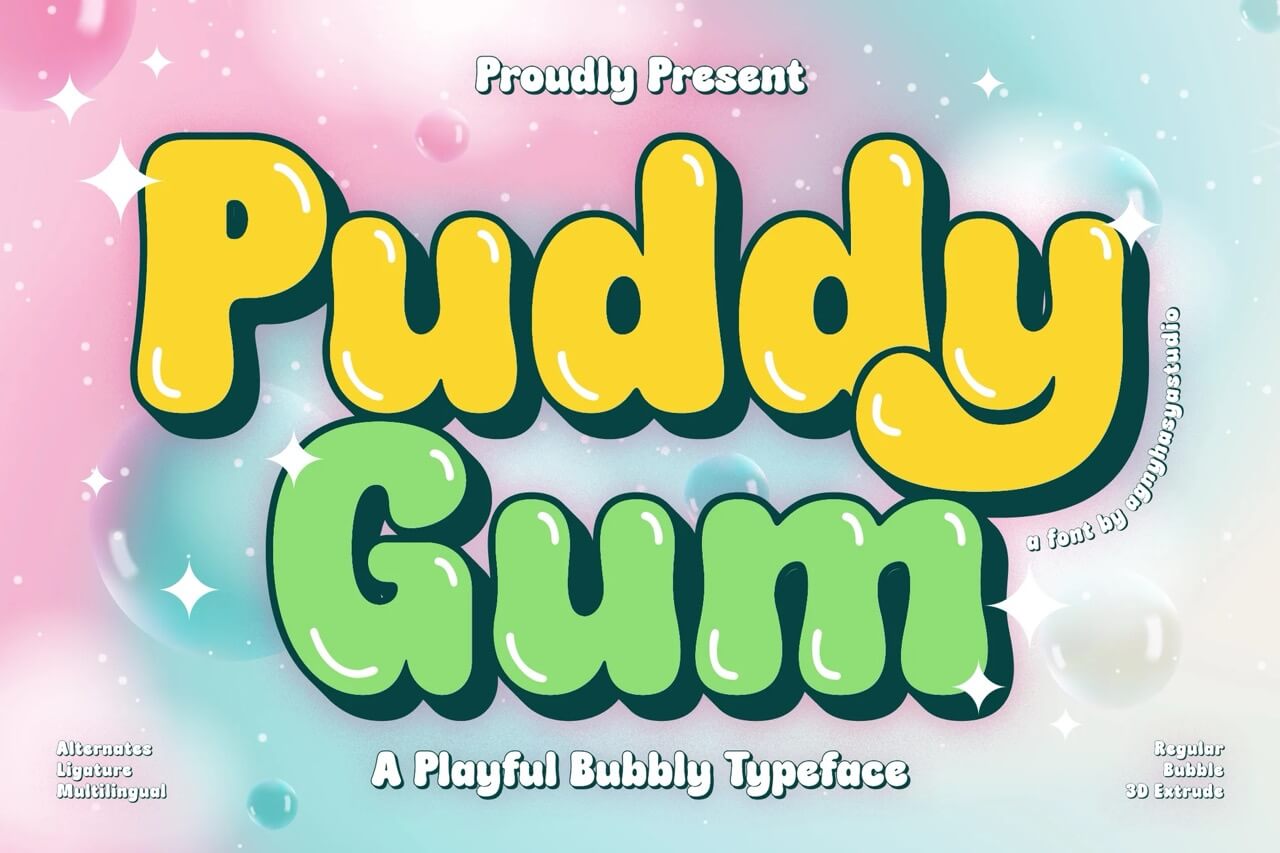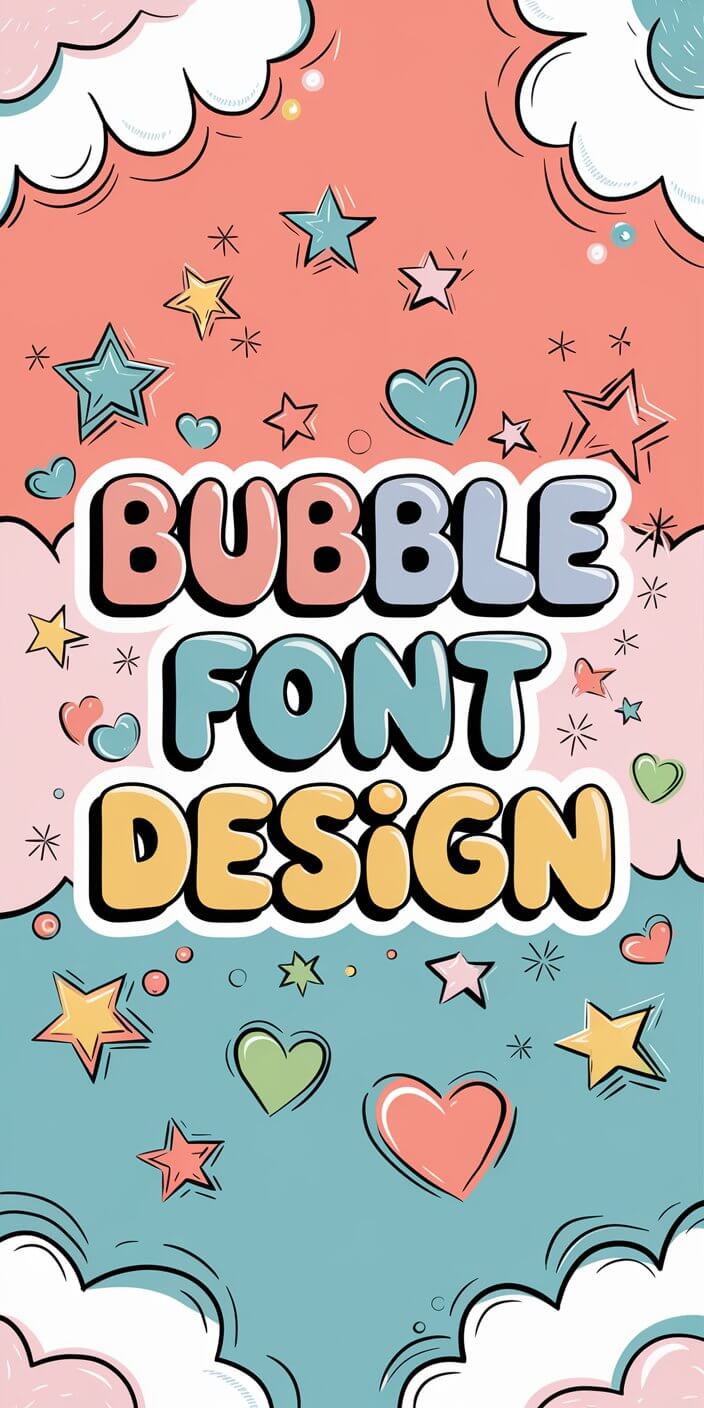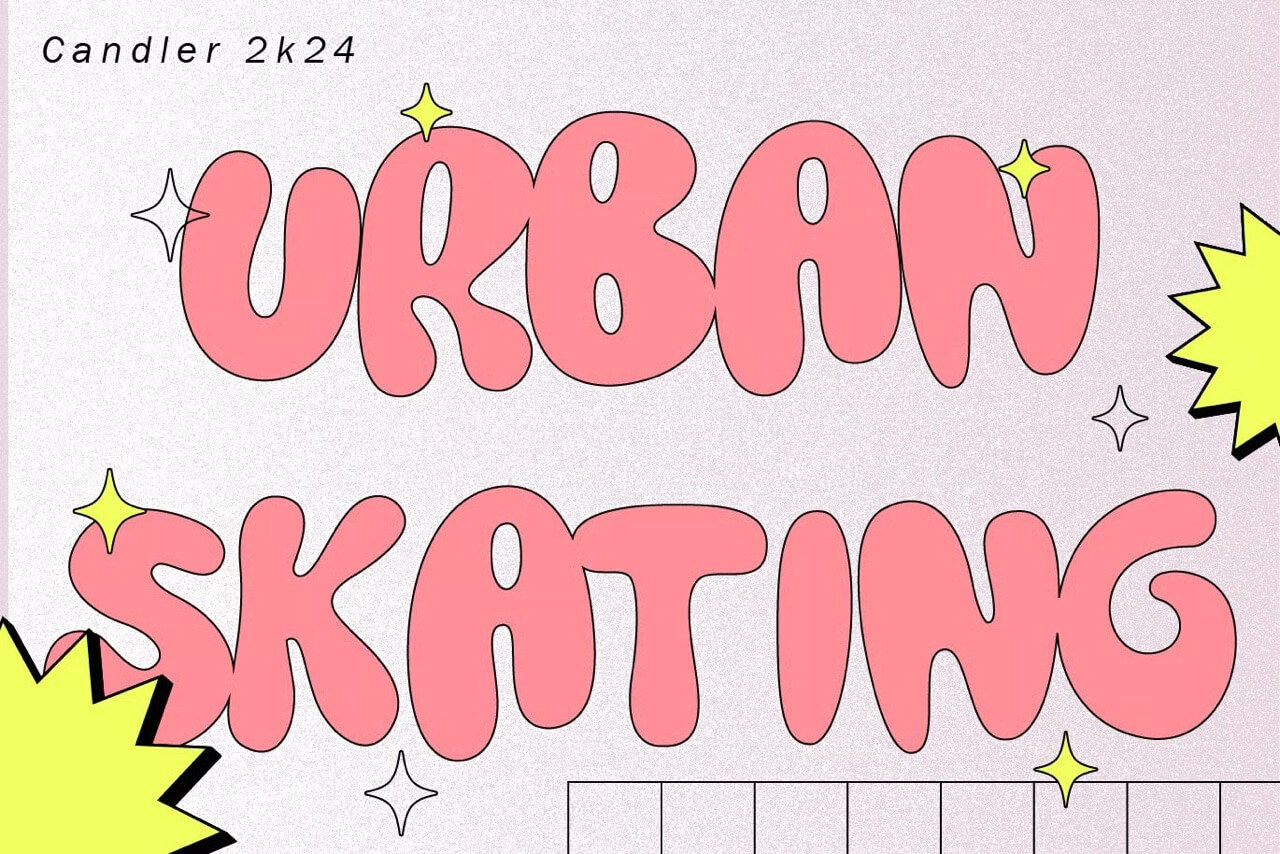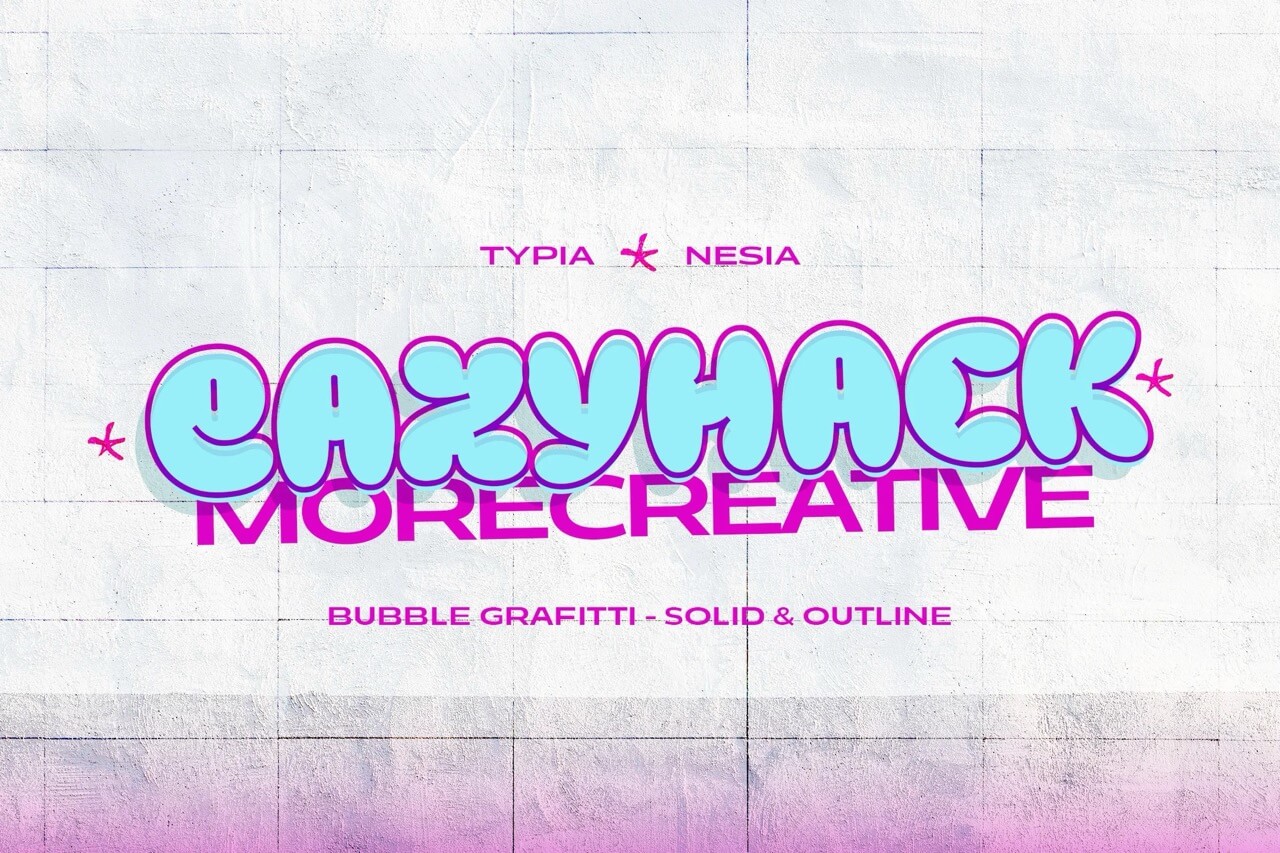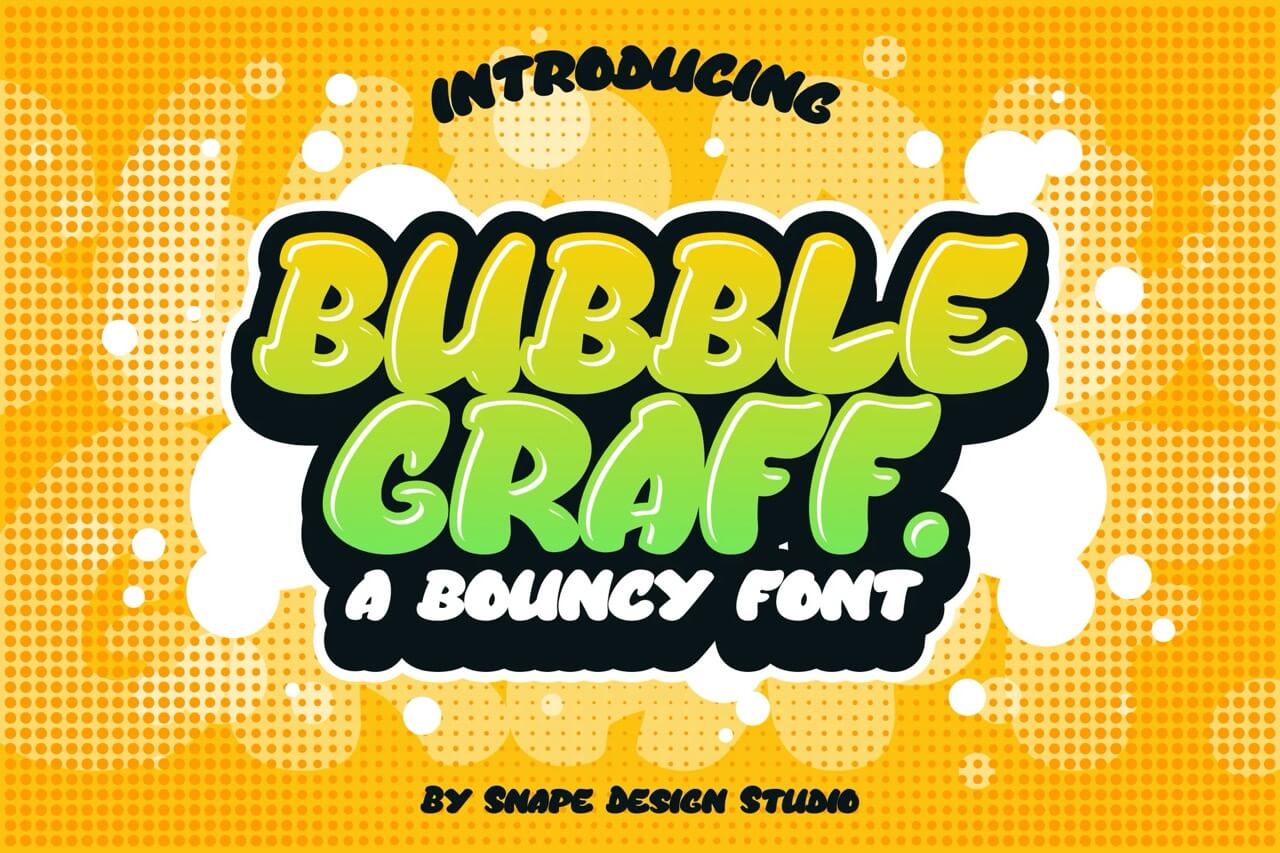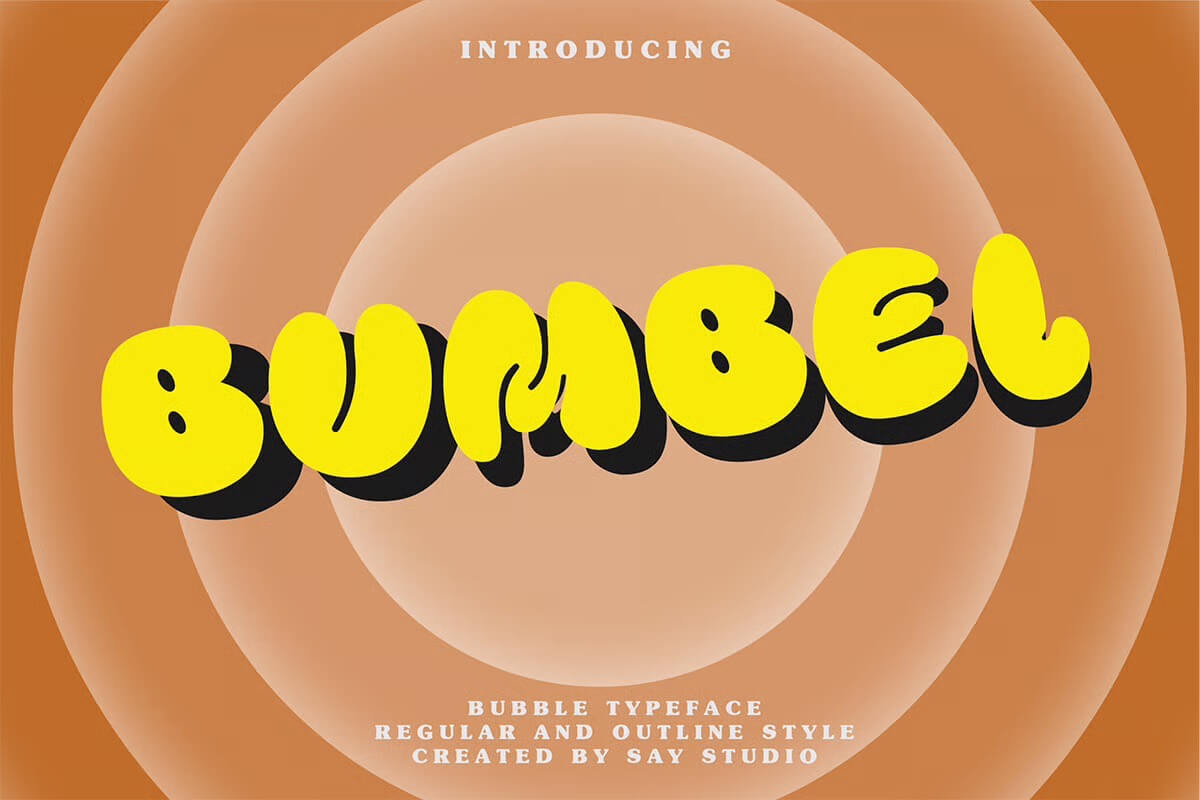
7 Bubble Font Design: Letters & Bubble Writing
If you’re into bold, round, retro-style letters that instantly make your design more fun and eye-catching, you’re going to love what bubble fonts can do.
Think groovy bubble titles, bubbly 3D effects, balloon-style letters for birthday invites, cute fonts for social media, and playful logos that feel full of personality.
I’ve used bubble writing in everything from kids’ posters to product mockups, and they never fail to make the design feel fresh and joyful.
Doesn’t matter if you’re a graphic designer, a content creator, or just DIY-ing your next printable, this guide will help you explore the best bubble font styles, where to download them (including some free fonts you’ll actually want to use), and how to make them work in your own projects.
Let’s talk about how to turn bubbly, bold letters into your next design superpower. Ready? Let’s dive in.
What Is a Bubble Font and Why Is Everyone Using It Right Now?
You know those fun, chunky letters that look like they were blown up with a pump? That’s a bubble font.
A bubble font is that puffy, round typography style you’ve probably doodled on a notebook at some point. It’s got that marker-drawn, almost inflatable letter look—like someone crossed cartoon art with graffiti, added a little shine, and made it perfect for modern design work.
And let’s be honest—there’s something about bubble letters that makes you stop scrolling. They’re bold. They’re cute. They feel a little retro, a little street, and a lot of fun.
Why are bubble fonts trending again in 2024? Because playfulness is back. We’re seeing it all over: in groovy bubble logos, in Instagram quote graphics, even on kids’ birthday party invites.
Designers (and non-designers) are using bubble fonts to bring back that joyful, youthful vibe, without overthinking it.
It’s that mix of nostalgic charm and visual punch that makes bubble writing so popular again. Whether you’re designing a product label, social post, or coloring page, this font style gives your design instant personality.
What Are The Premium Bubble Fonts You Can Download Now?
1. Puddy Gum – A Playful Bubbly Typeface
2. Candler – Bubble Display Typeface
3. Bumble Dog – Fat Bubble Font
4. Eazyhack – Modern Bubble / Balloon Graffiti Font
5. Bubble Graff – Bouncy Font
6. Fluffy Blitz – 2 Graffiti Bubble
7. Bumbel – Decorative Modern Bubble
Where Can You Use Bubble Fonts in Your Design Projects?
Pretty much anywhere you want your design to feel a little more fun, a little more you.
Bubble fonts are one of my favorite ways to make a project feel bold without being shouty. There’s something about their rounded, puffy shapes that just makes your text feel instantly more approachable—and honestly, more scroll-stopping.
I’ve used bubble fonts in everything from playful logos for small brands to birthday invites I whipped up between nap time and snack breaks. They work great for:
✓ Social graphics that need a pop of personality
✓ Cute posters for a kids’ event
✓ A retro-themed printable for your Etsy shop
✓ Or even just a Pinterest quote you want to feel more… bubbly
These fonts bring in that soft, balloon-like style that draws the eye. And if you’re working with a clean or minimal layout? Add a bold bubble font to break the monotony and instantly give your design a shot of visual interest.
Whether you’re a full-time designer or DIY-ing a brand refresh from your kitchen table, these fonts are the perfect way to add a little playfulness without overthinking it.
What’s the Difference Between Bubble Fonts and Bubble Letters?
Okay, let’s clear something up—because this gets confusing if you’re new to the bubble world.
A bubble font is a fully functional font file you can download, install, and type with in your favorite design software (like Canva or Illustrator). Every letter, number, and punctuation mark comes pre-styled in that inflated, rounded look.
Bubble letters, on the other hand, are usually drawn by hand. You’ll find them in coloring pages, worksheets, or maybe in a custom alphabet pack. They’re more of a visual element than a full font file.
So if you want to create your own quote graphic, flyer, or logo using a keyboard—look for bubble fonts. But if you’re working on something more DIY, like custom handwriting or printable crafts, bubble letters might be the way to go.
Both are great. It just depends on whether you want to draw it or type it.
Where to Find Free Bubble Fonts You’ll Actually Want to Use
There are a lot of so-so “free fonts” out there, but when it comes to bubble fonts, I’ve found some real gems that are totally worth saving.
If you’re on a budget (or just testing things out), here’s where you can download good-looking free bubble fonts:
✓ DaFont – A classic. Tons of playful styles, including graffito, cartoon, and handwritten looks